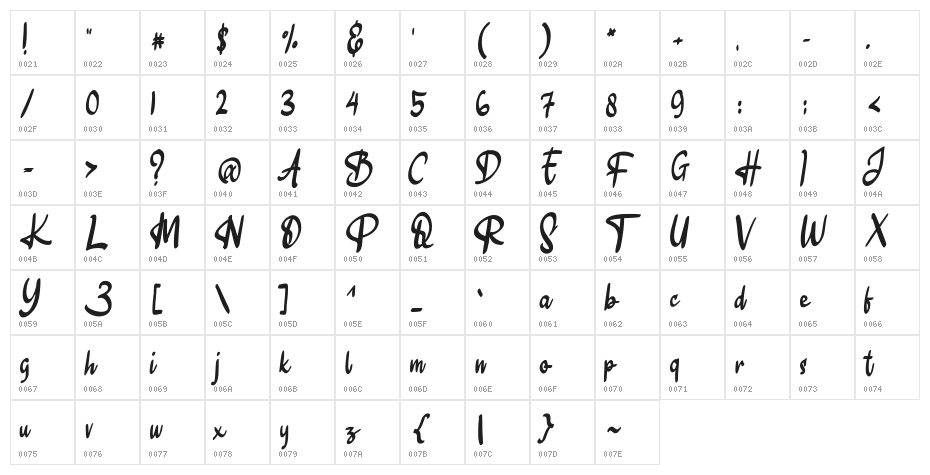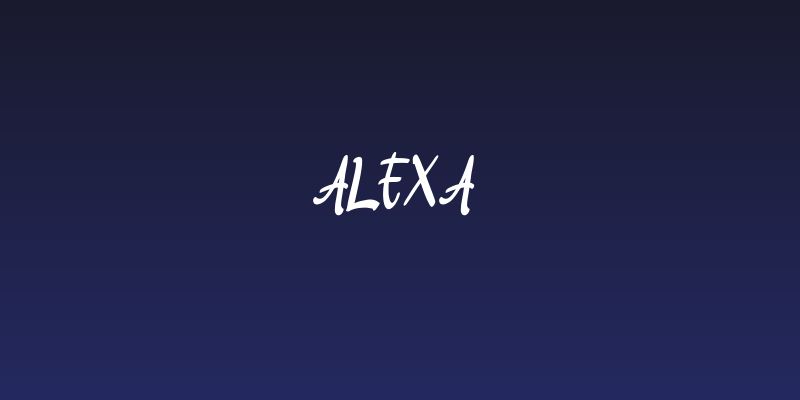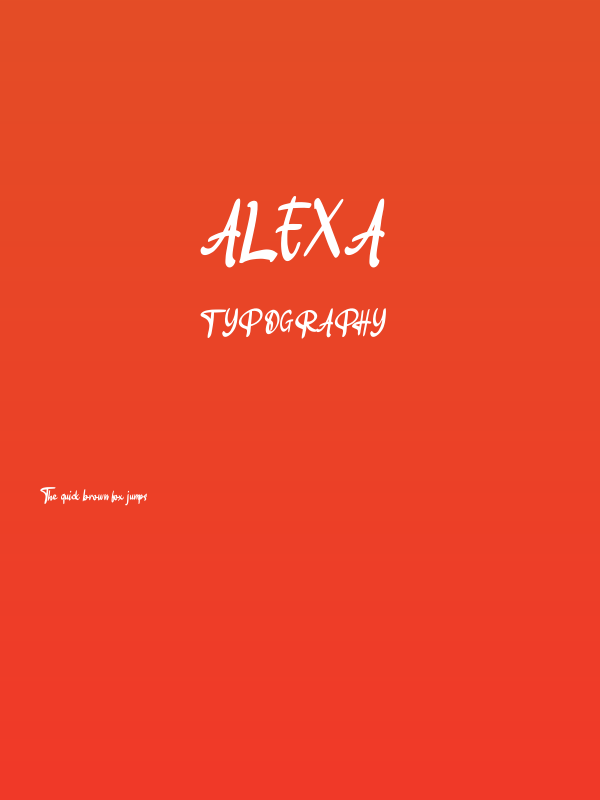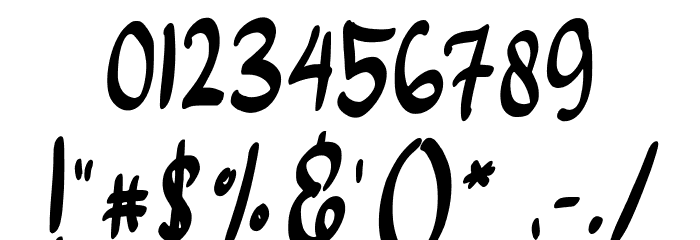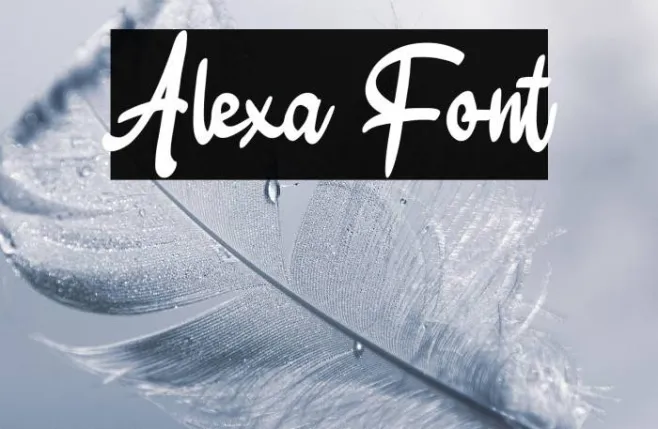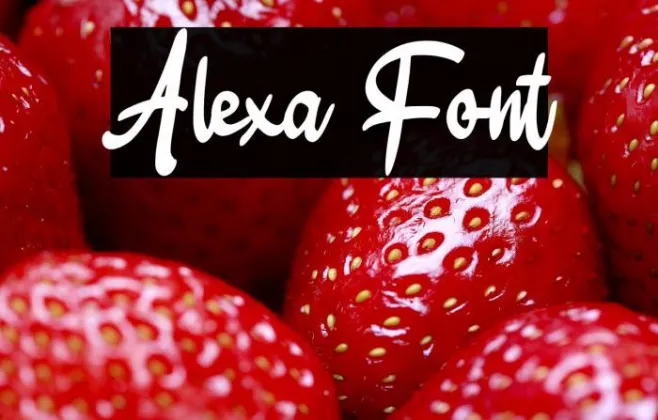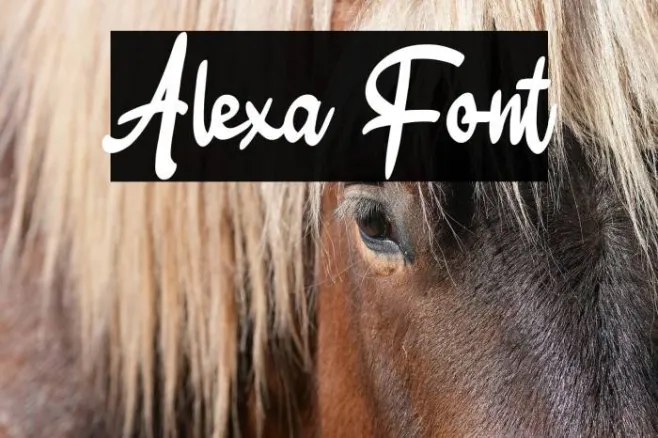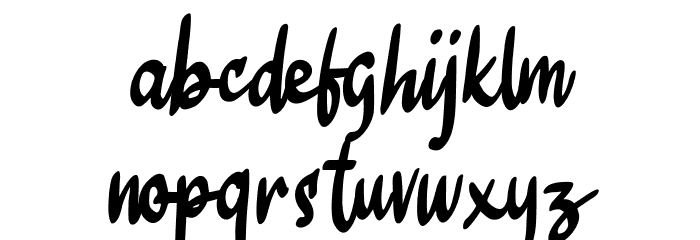
Alexa Font
Alexa Description
This font features a bold, cursive style with a playful and energetic flair. The uppercase letters are slightly larger and more pronounced, while the lowercase letters maintain a consistent flow, enhancing readability. The numerals are distinct and easy to distinguish, complementing the overall design. Special characters are creatively integrated, adding to the font's versatility. The strokes are smooth and rounded, giving a friendly and approachable feel. This font is ideal for projects that require a personal touch or a sense of creativity and fun.